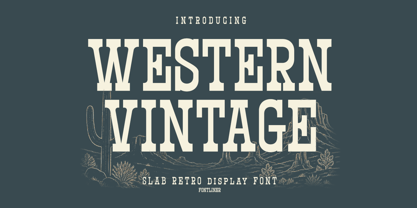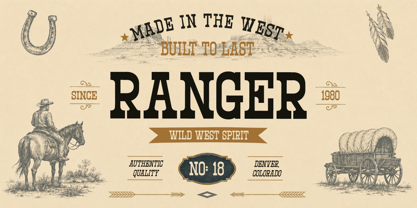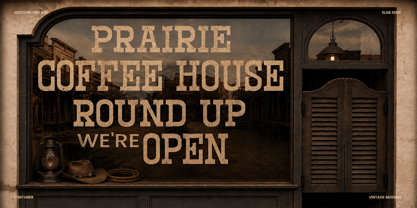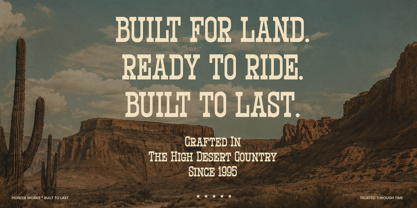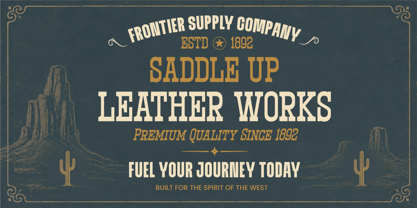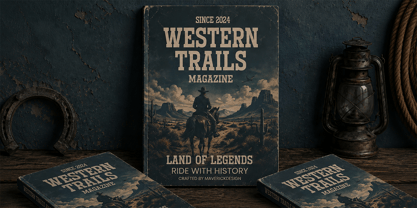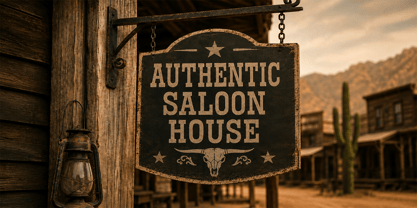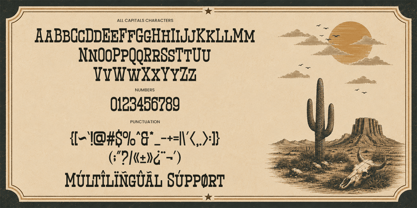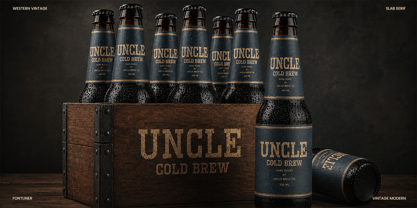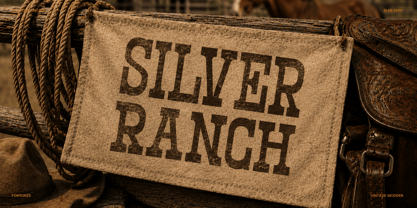
Western Vintage
The Western Vintage Font Family was designed by Ghina Luthfiarieska and published by Font Liner. Western Vintage contains 2 styles and family package options. More about this family
Western Vintage is slab retro display font is a bold and authentic typeface inspired by classic cowboy culture, old saloon signage, rustic ranch branding, and the timeless spirit of the American frontier. Combining strong slab serif letterforms with handcrafted vintage details, this font delivers a distinctive western aesthetic that instantly grabs attention.
Designed for impactful typography, Western Vintage is perfect for logos, whiskey and bourbon labels, beer packaging, coffee shop branding, restaurant menus, western apparel, merchandise, editorial layouts, posters, book covers, signage, badges, emblems, and social media graphics. Its bold construction and retro character make it ideal for eye-catching headlines while maintaining excellent readability.
Whether you're creating a vintage-inspired brand, designing rustic packaging, promoting a country festival, or building authentic western-themed artwork, Western Vintage brings the rugged charm of the Wild West into every project. It's a versatile display font made for designers who want timeless western character with a premium vintage finish.
• Regular and Italic
• Uppercase and Lowercase
• Number, Symbol, and Punctuation
• Multilingual Support